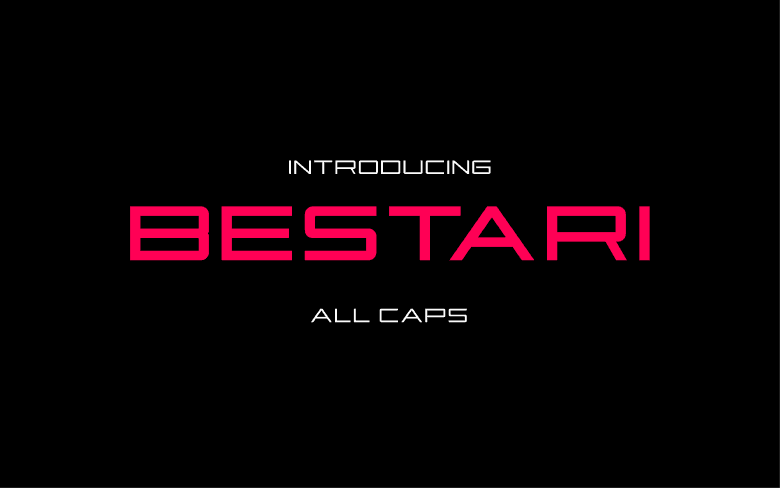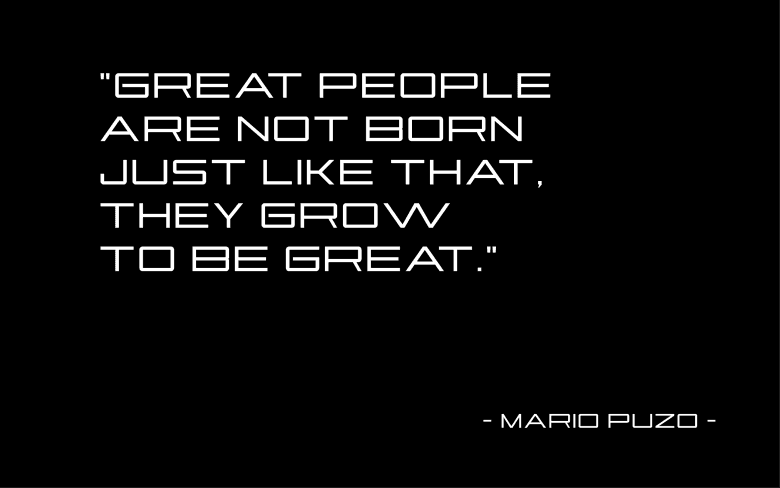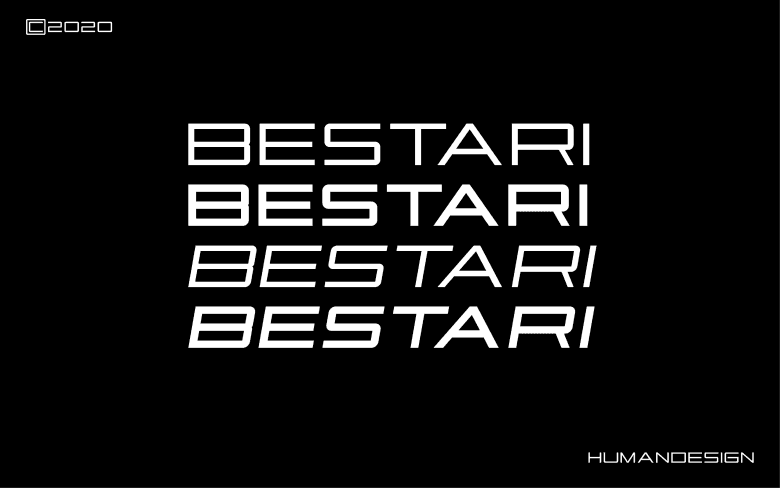
Bestari is a clean, modern, minimalistic sans-serif font that is great for words, titles and tags – it’s perfect if you want to avoid fuss! It looks very good at first sight.